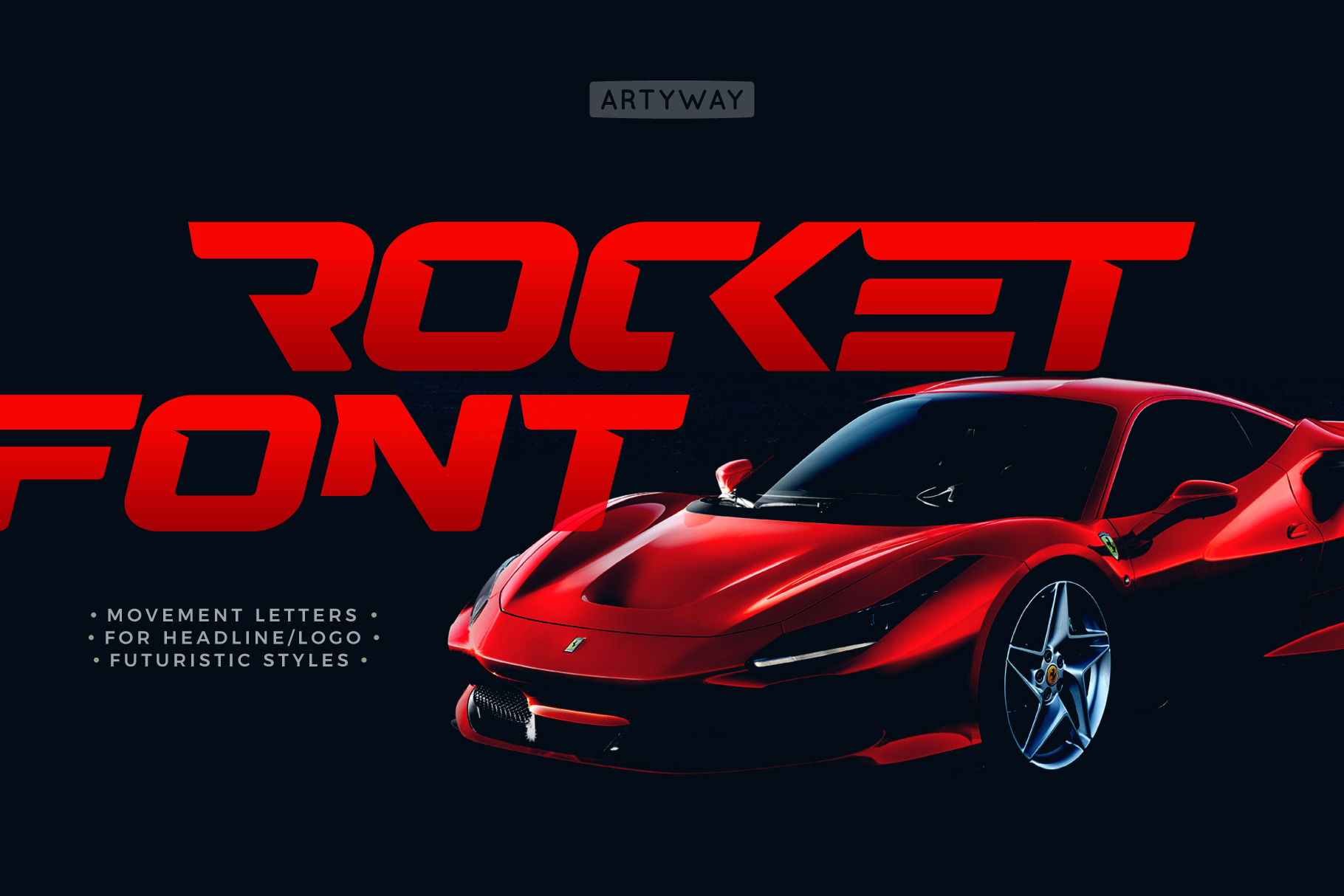
Rocket Movement Font
The Rocket font with clean and decisive lines, perfectly balanced between futuristic, dynamic and calm confident letters style, ideal for dynamic, space and race headlines or logo.
- Regular + Italic
- Alternate symbols